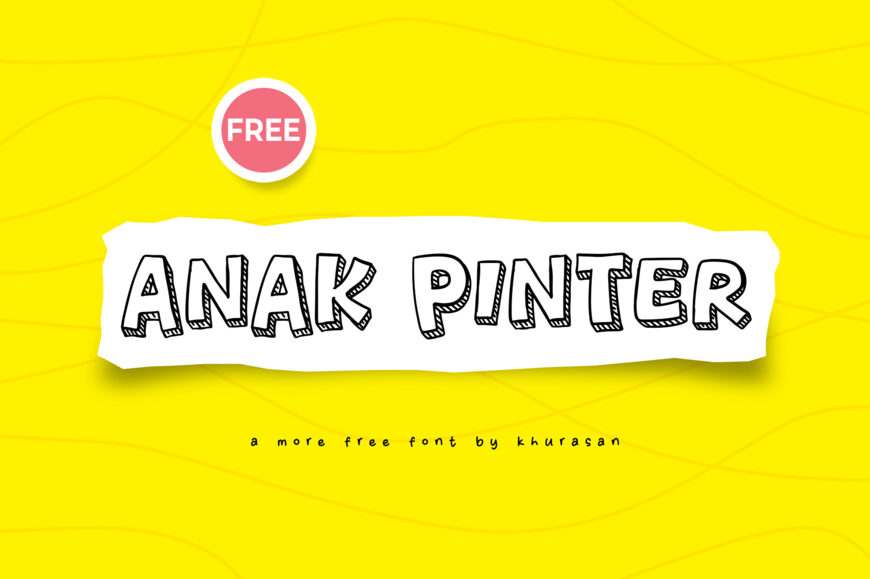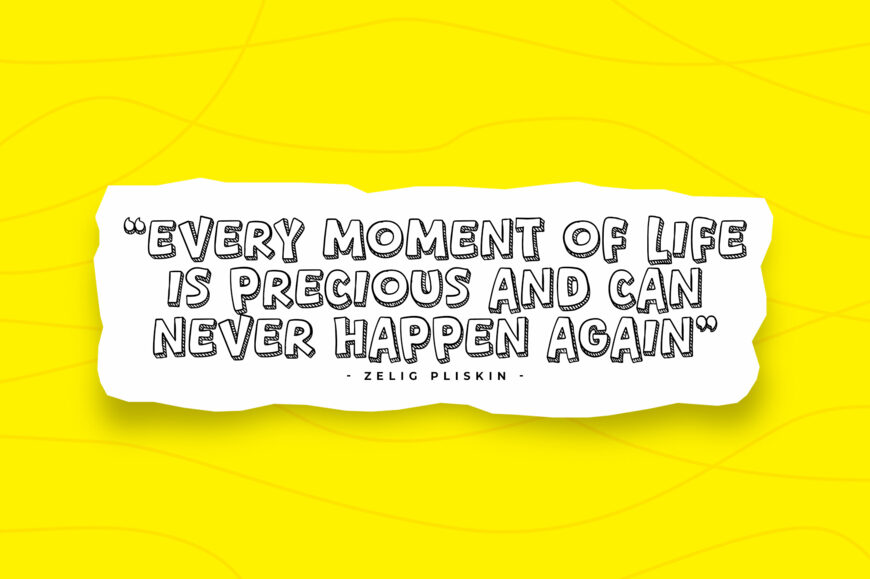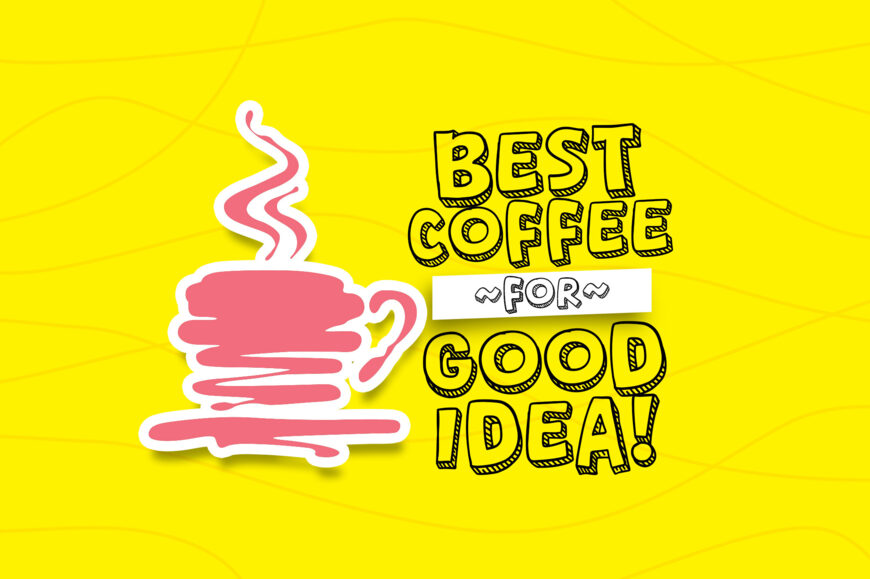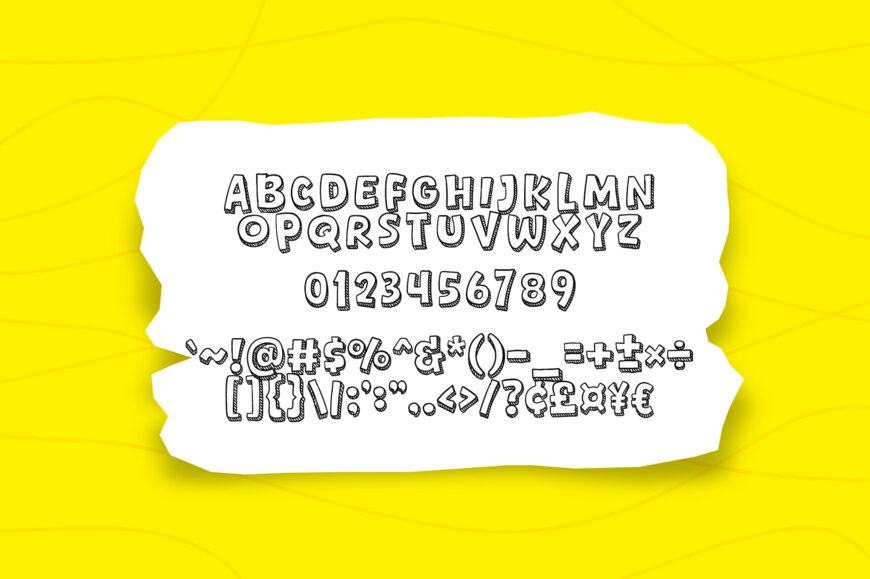
Anak Pinter Font is a playful hand-drawn display typeface with bold, irregular letterforms and sketch-style shadow details. Its friendly, casual personality makes it a great choice for posters, children’s designs, educational projects, packaging, social media graphics, quotes, and creative branding.
The font includes uppercase letters, numbers, punctuation, and symbols, giving designers plenty of flexibility for fun and expressive typography.